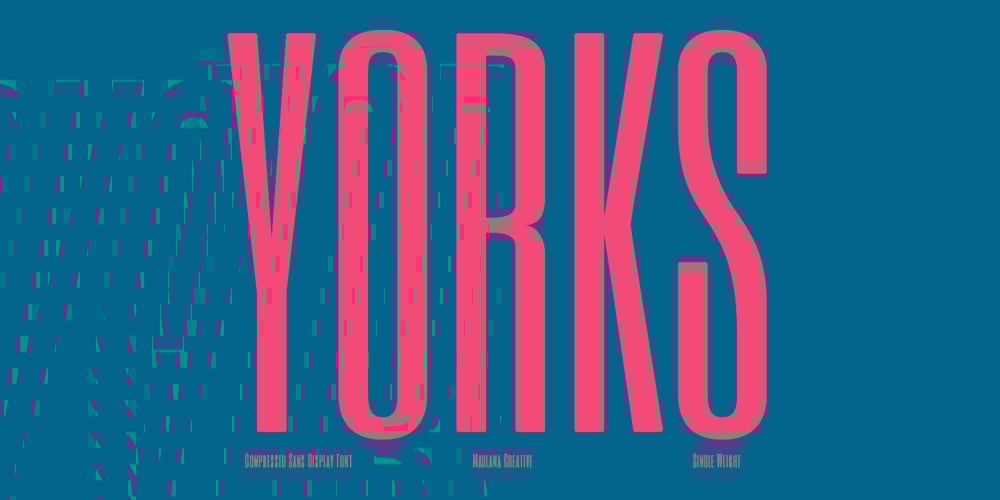
MC Yorks Font Family was designed by Gilang Maulana and published by Maulana Creative. MC Yorks contains 1 styles and family package options. Yorks is a Compressed sans Display font. Regular stroke, fun character with a bit of ligatures and alternates. To give you an extra creative work. Yorks font support multilingual more than 100+ language. This font is good for logo design, Social media, Movie Titles, Books Titles, a short text even a long text letter and good for your secondary text font with script or serif. Make a stunning work with Yorks font. Cheers, Maulana Creative